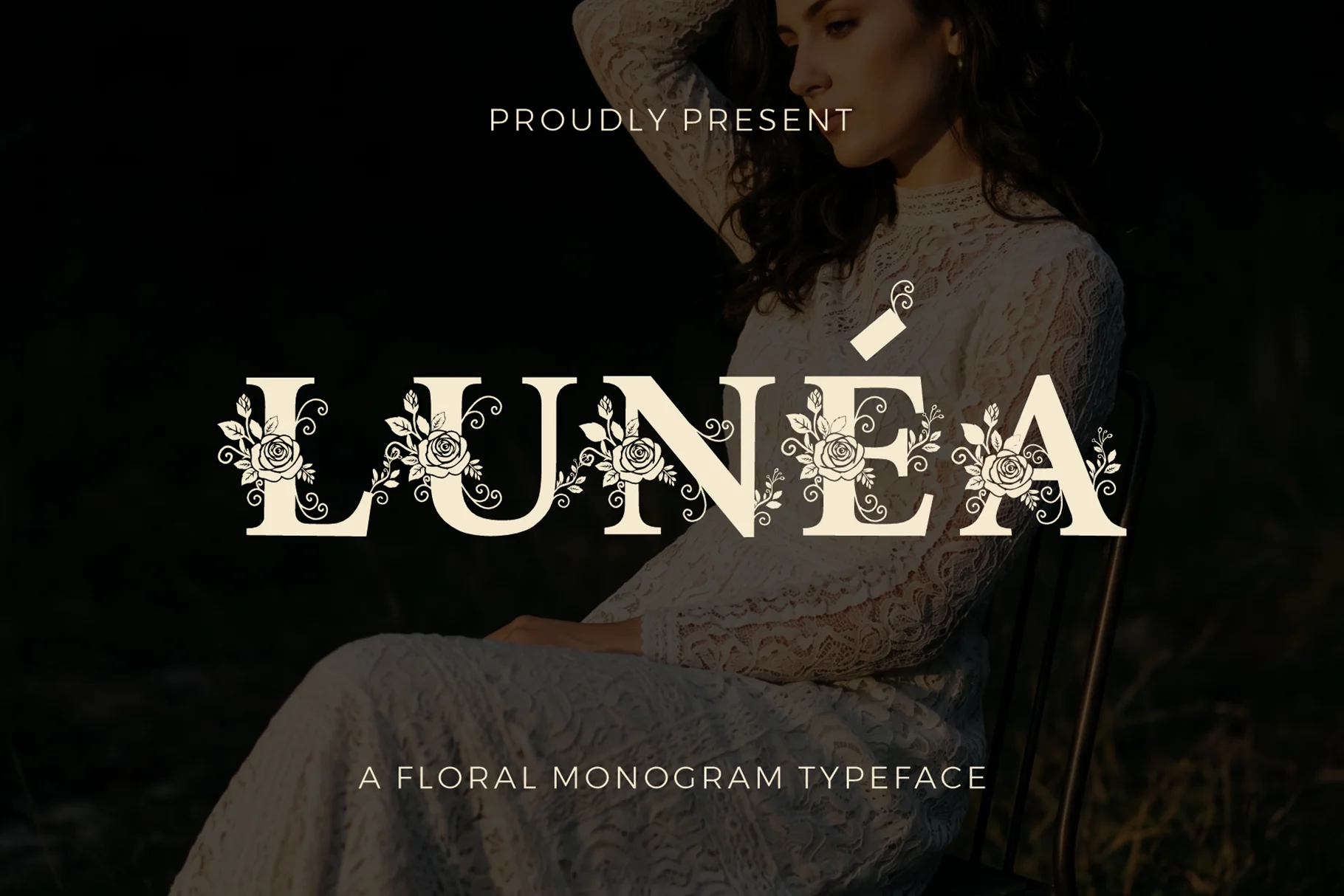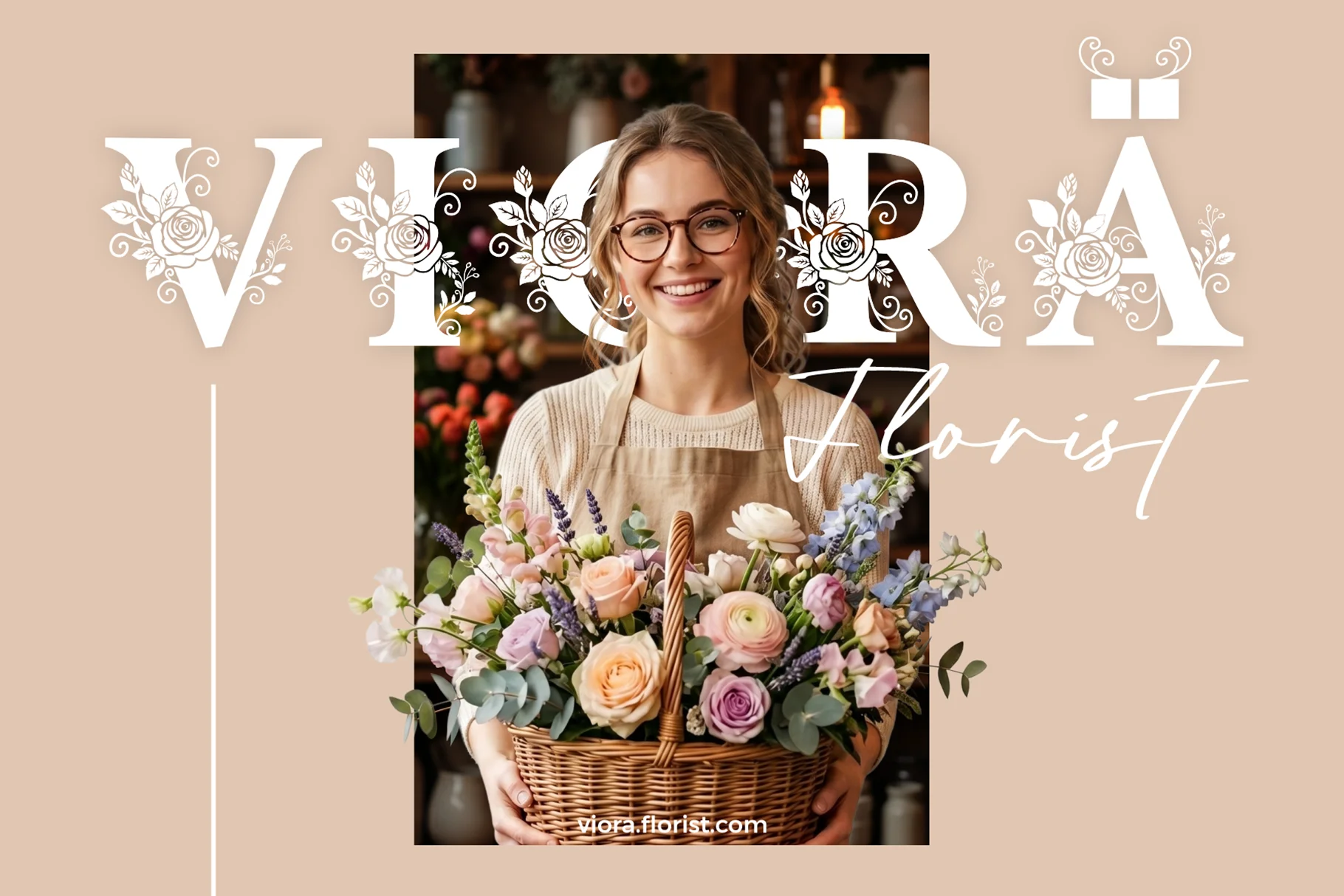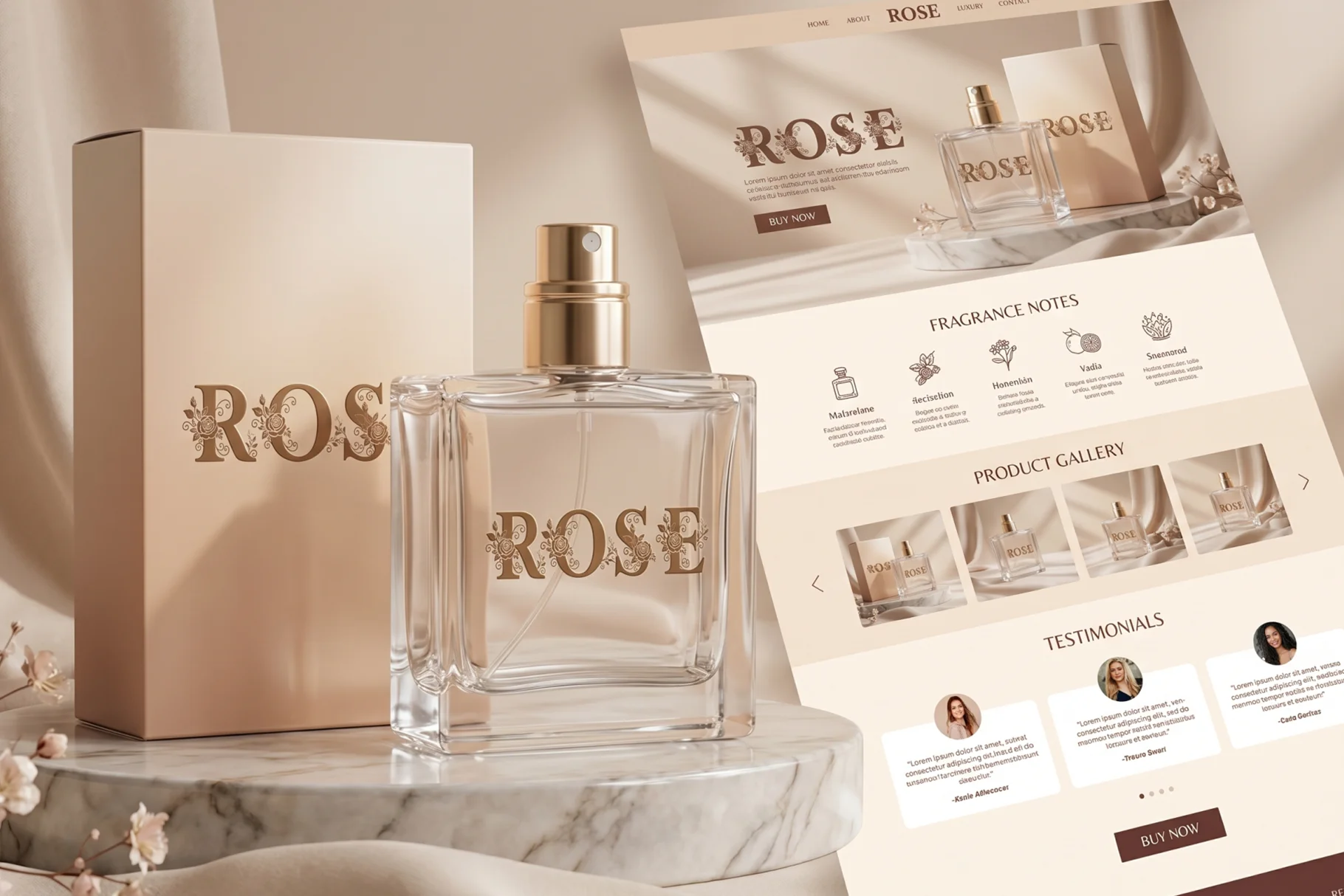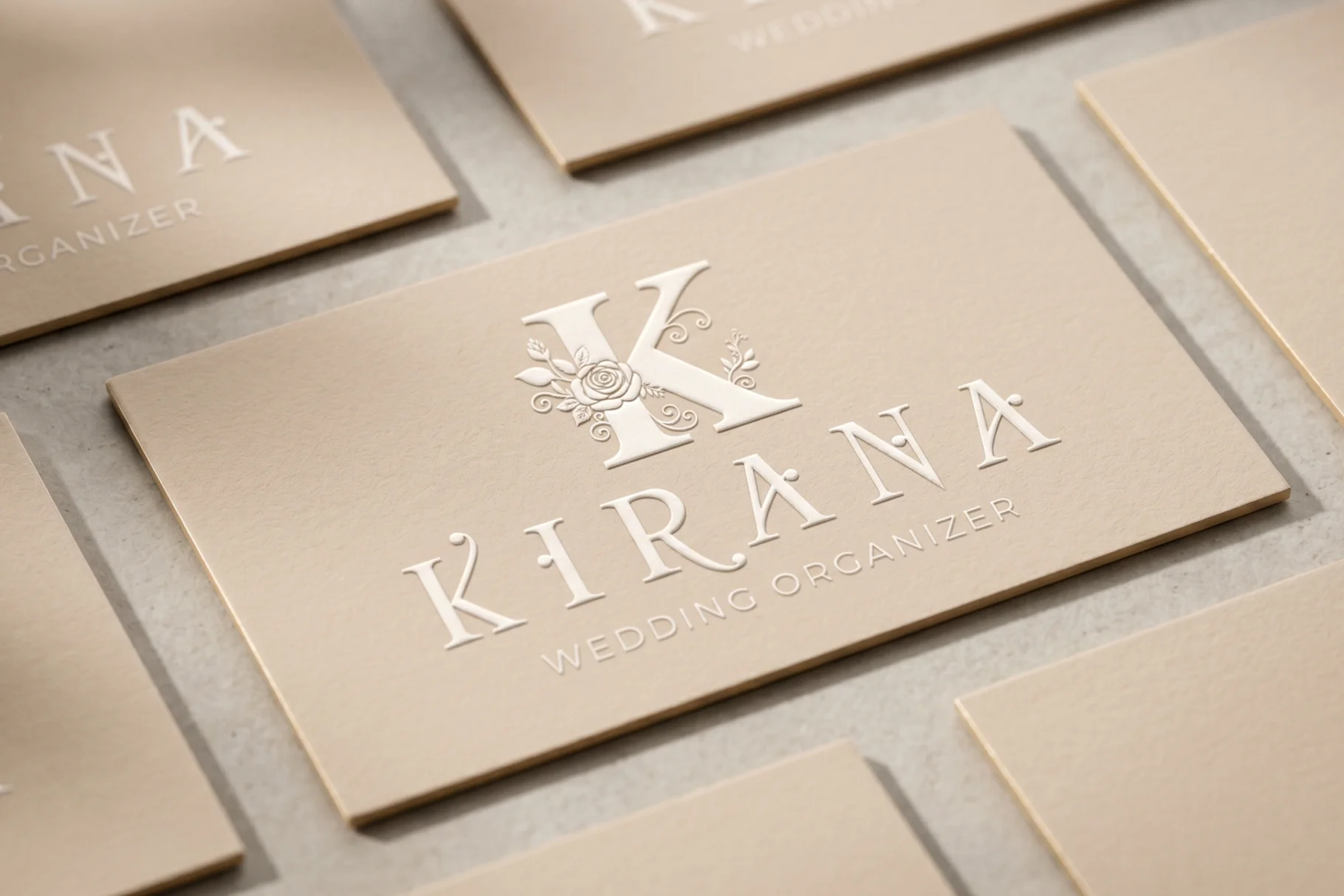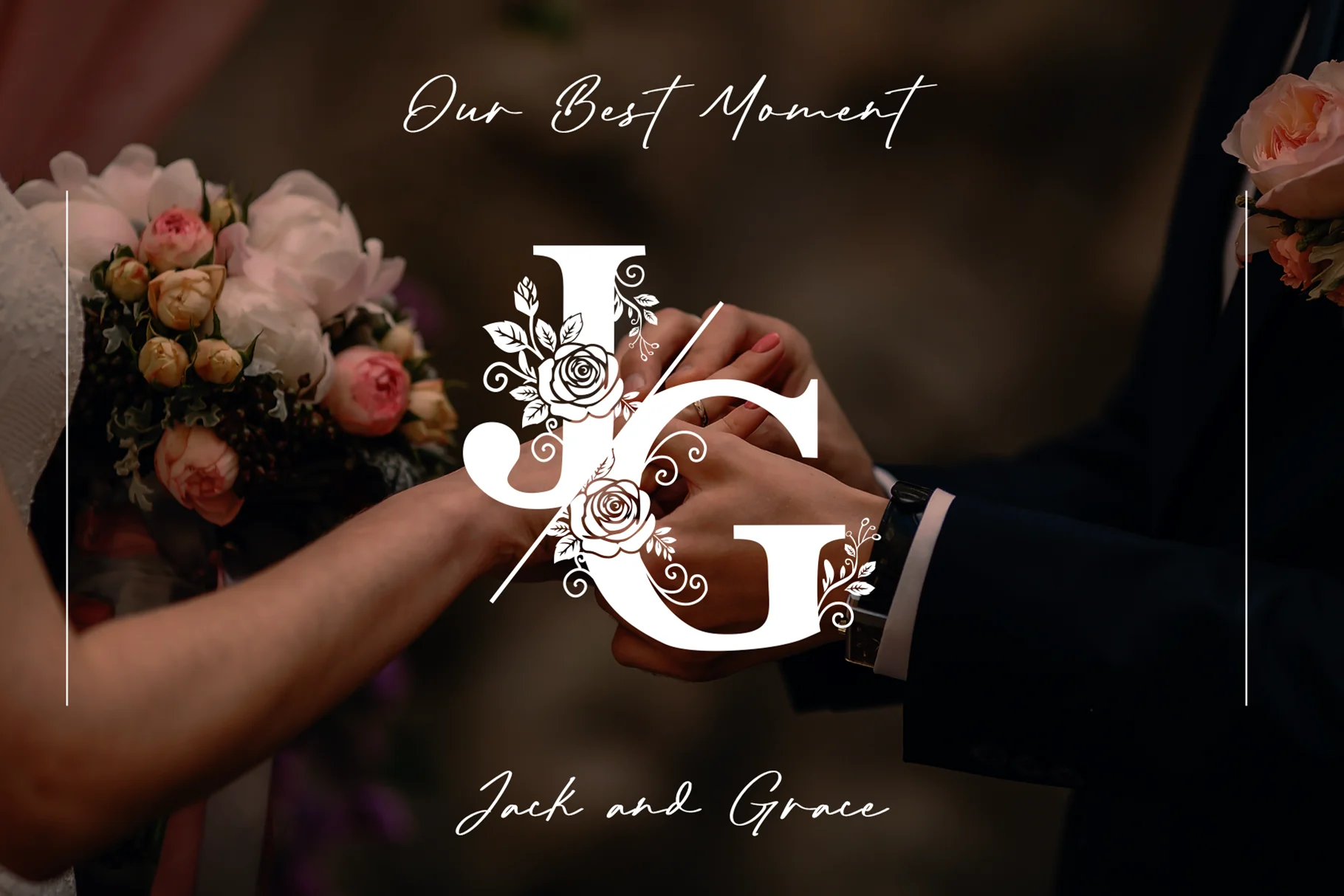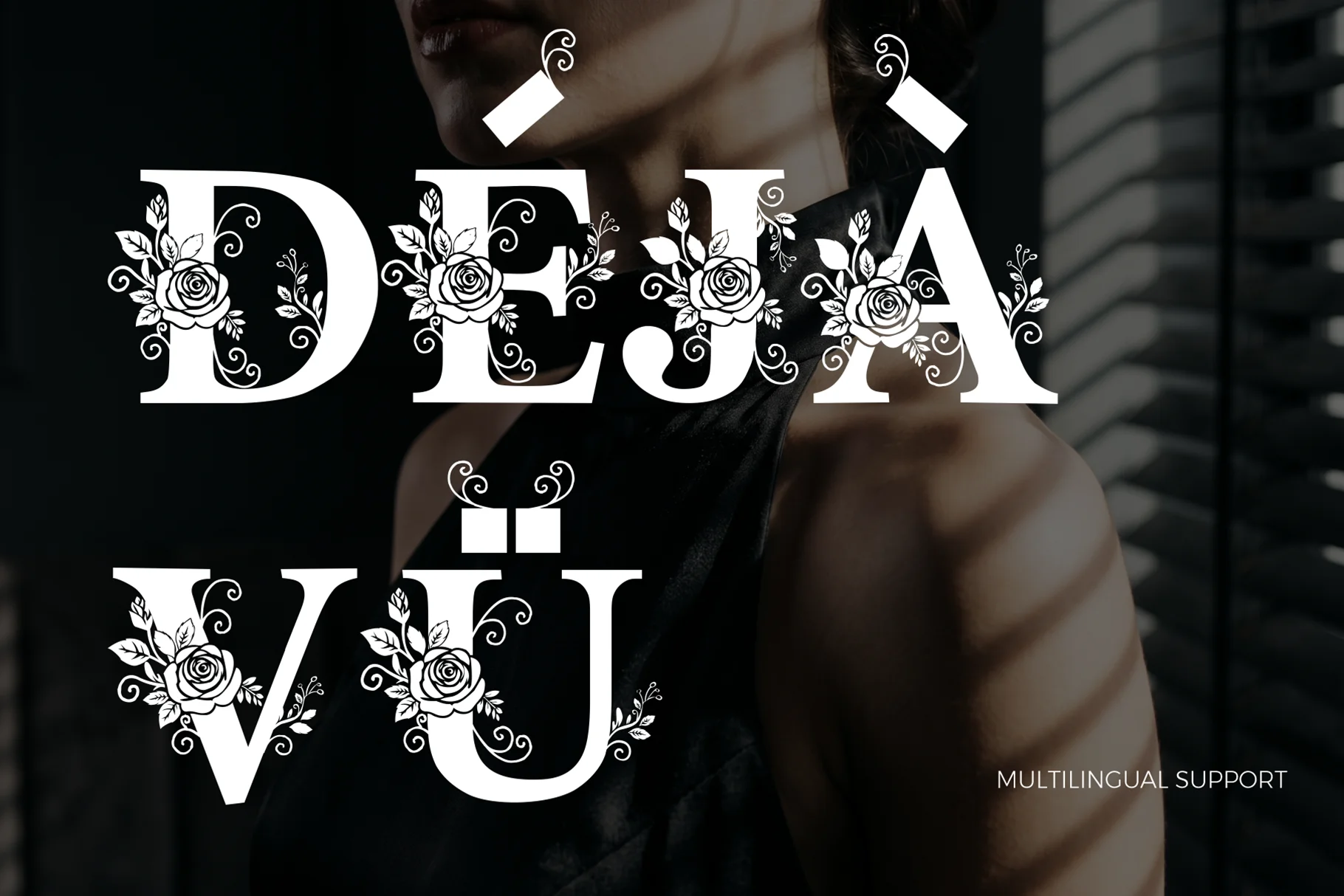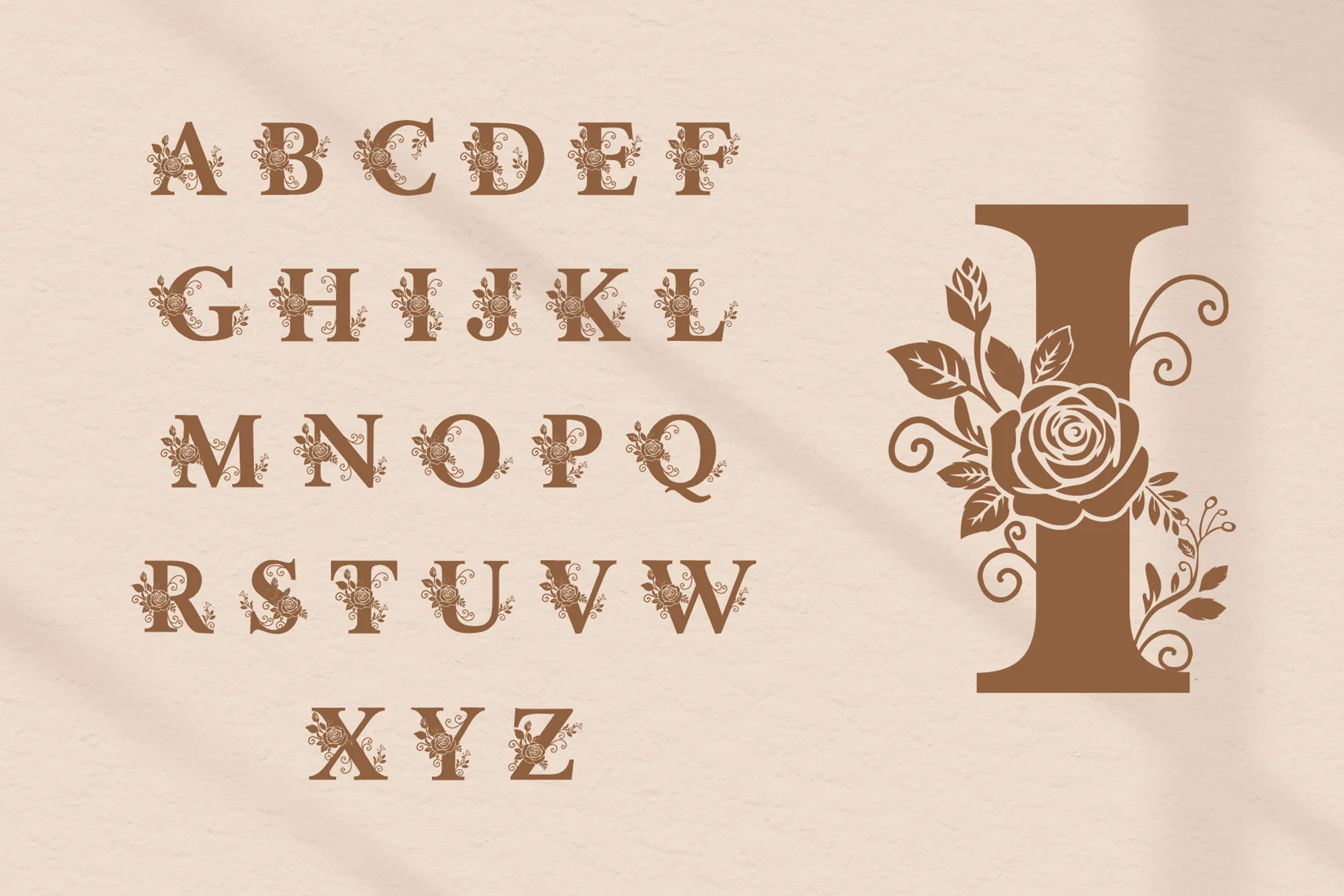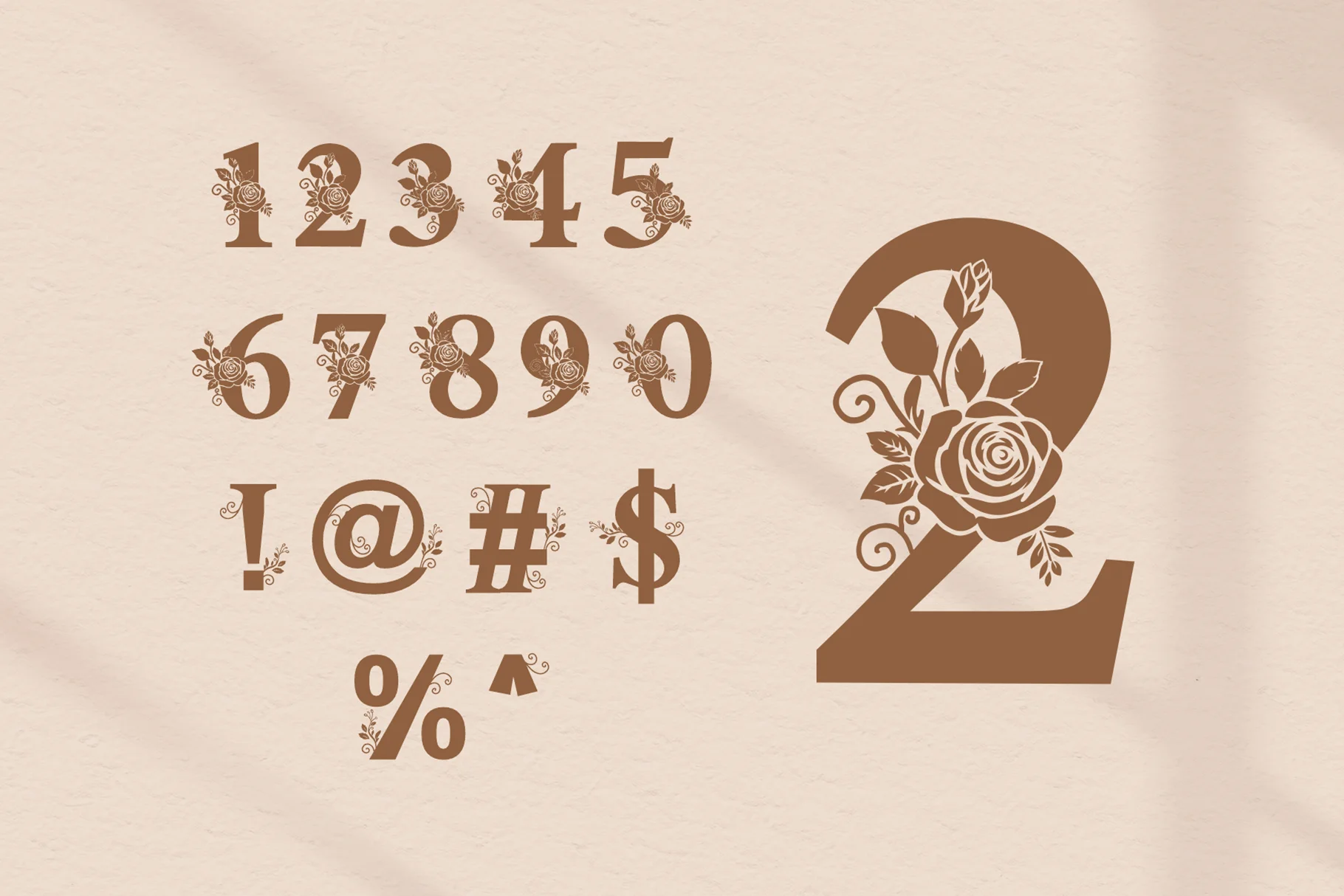
Lunea
Lunea is an elegant floral monogram font for weddings, branding, invitations, packaging, and botanical designs with a refined decorative character.
• Floral Monogram Character
• Uppercase, Numbers & Punctuation
• Applications for Botanical & Elegant Design
About Lunea
Lunea is a floral monogram typeface with an elegant decorative character, designed to bring botanical beauty and refined ornament into display typography. Its monogram-inspired personality makes it especially suited to designs where lettering needs to feel distinctive, graceful, and closely connected to floral or nature-inspired aesthetics.
With its decorative approach, Lunea can turn individual initials, names, and short words into prominent visual elements. The floral character makes it a natural fit for wedding stationery, boutique branding, invitations, packaging, monograms, and other projects that call for an ornamental typographic presence.
Lunea is intended primarily for display use, where the letterforms can be appreciated as part of the overall composition. It works particularly well when paired with generous spacing, elegant layouts, botanical imagery, or restrained supporting typography.
Floral Monogram Character
Lunea combines the structure of a monogram-inspired typeface with a decorative floral mood. Its visual identity is centered around ornamental lettering, making individual characters suitable for initials, names, titles, and other short display treatments where the typography itself becomes part of the decoration.
The monogram approach also makes Lunea useful for creating a sense of identity around a single letter or combination of initials. Whether used as a focal point or integrated into a larger layout, the typeface can contribute an elegant botanical atmosphere without requiring additional typographic effects.
Uppercase, Numbers & Punctuation
Lunea includes uppercase lettering, numbers, and punctuation, giving designers the core characters needed for decorative headings, names, dates, labels, invitations, and other display compositions. The uppercase format is particularly suitable for monogram-style initials and prominent typographic treatments.
Applications for Botanical & Elegant Design
• Wedding invitations and stationery
• Floral and boutique branding
• Monograms and personal identity designs
• Packaging and product labels
• Editorial and decorative event graphics
• Floral monogram typeface
• Elegant decorative character
• Botanical-inspired visual mood
• Monogram-focused display aesthetic
• Uppercase lettering
• Numbers included
• Punctuation included
• Suitable for initials and names
• Designed for decorative display typography
• Well suited to refined floral compositions
Why Designers Love Lunea
Lunea gives designers a distinctive way to make initials, names, and short phrases feel like part of the decoration itself. Its floral monogram character can establish an elegant visual mood without relying on excessive effects, making the typography suitable for both personal and commercial design projects.
The display-focused construction also makes hierarchy straightforward. A monogram or main name can become the central visual element, while simpler supporting typography can handle secondary information such as dates, descriptions, or event details. This balance works particularly well in stationery, branding, packaging, and invitation design.
Let Your Lettering Bloom
Lunea brings floral ornament and monogram-inspired typography together in a decorative typeface designed for expressive display work. Its botanical character makes it especially suitable for projects centered around elegance, nature, personal identity, and refined visual presentation.
Use Lunea for wedding stationery, floral branding, monograms, invitations, packaging, boutique identities, and decorative editorial designs where an ornamental floral typeface can become an important part of the visual language.